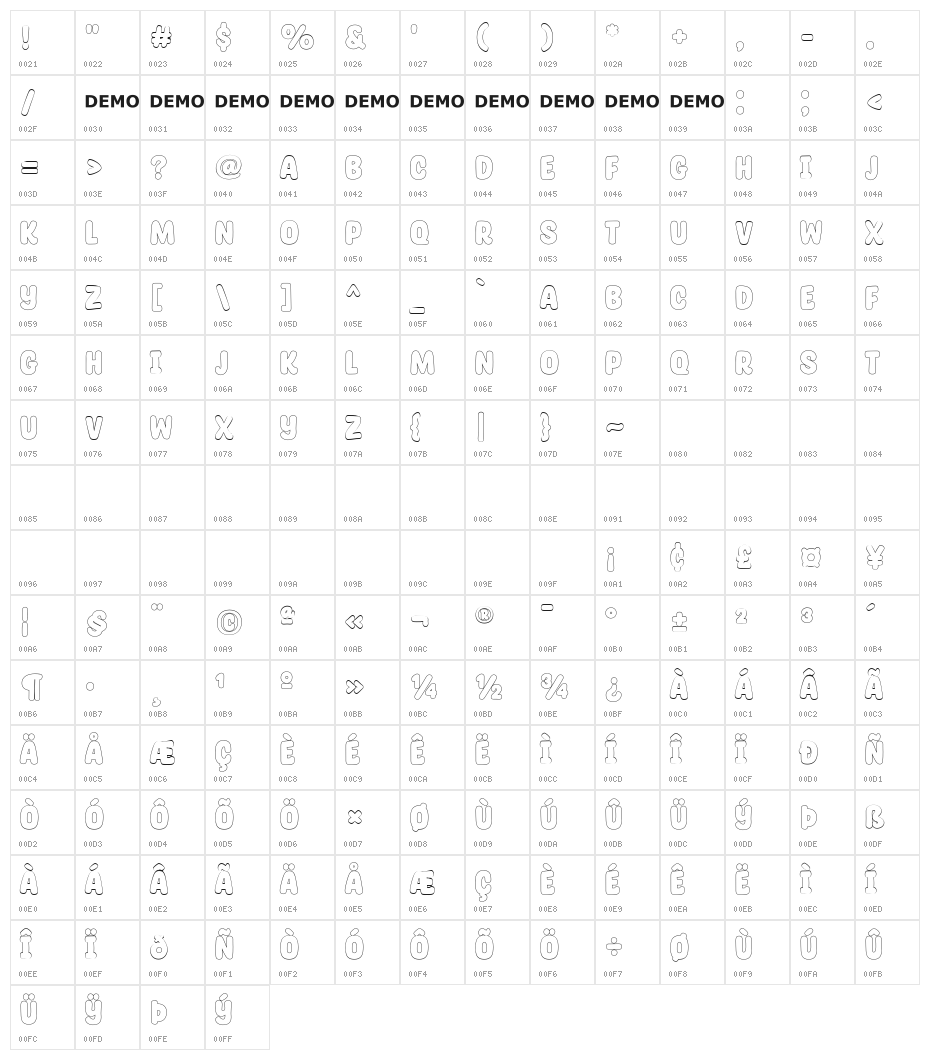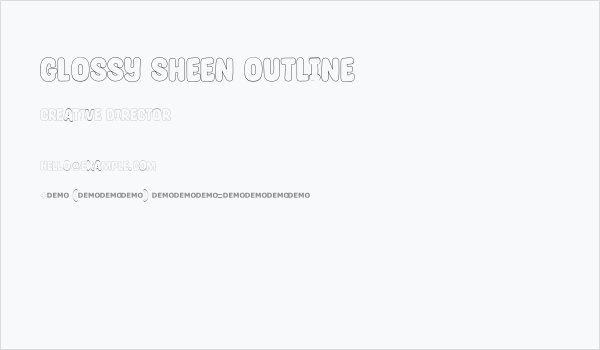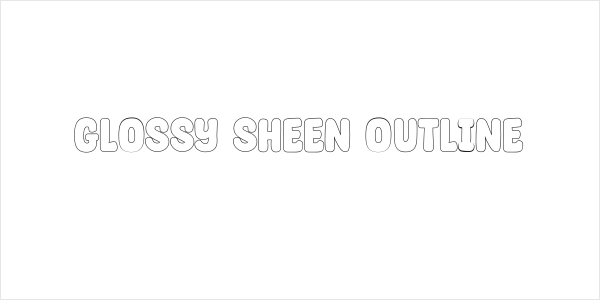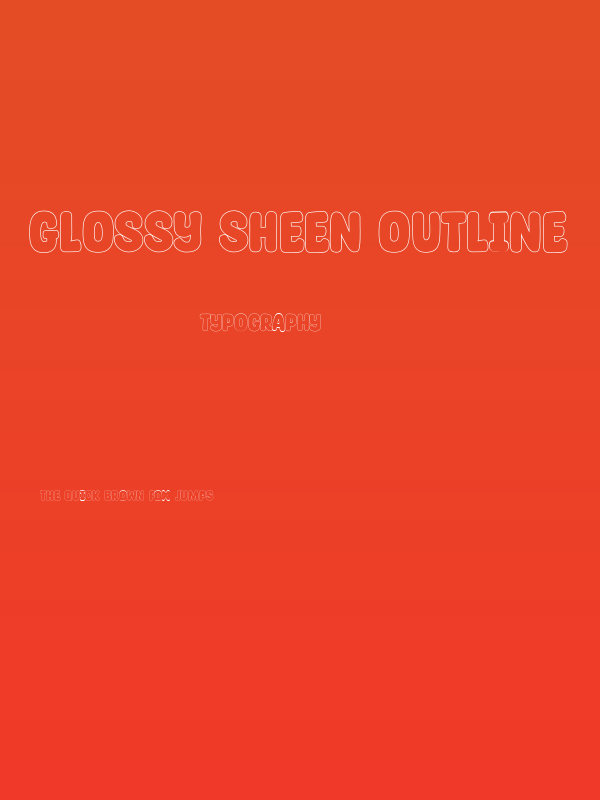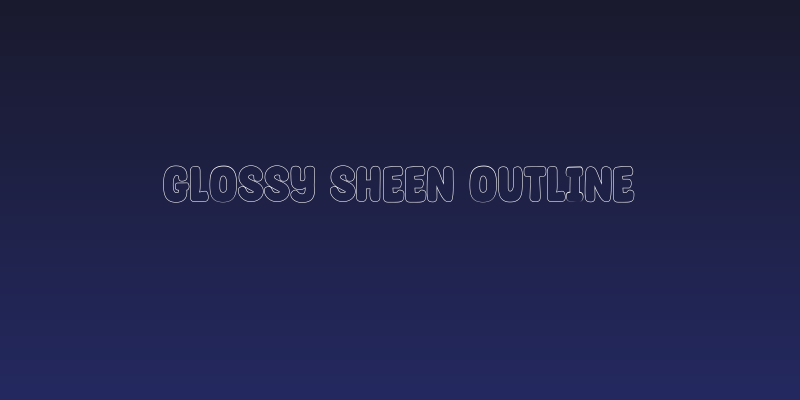
Glossy Sheen Outline Font
Glossy Sheen Outline Description
This font features a playful and bold outline style, characterized by its rounded and bubbly letterforms. Each character is defined by a consistent, thick outline that gives it a cartoonish and approachable appearance. The uppercase and lowercase letters maintain a uniform style, ensuring readability and visual harmony. The numerals and special characters follow the same design principles, making them easily recognizable and cohesive with the alphabet. This font's unique outline effect adds a sense of depth and dimension, making it stand out in any design.
| Overall Style | Playful, Cartoonish |
| Proposed Projects | Ideal for children's books, playful branding, posters, and party invitations. |